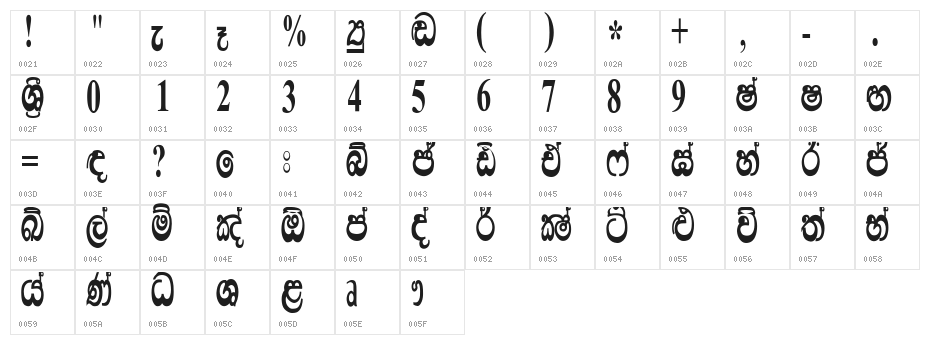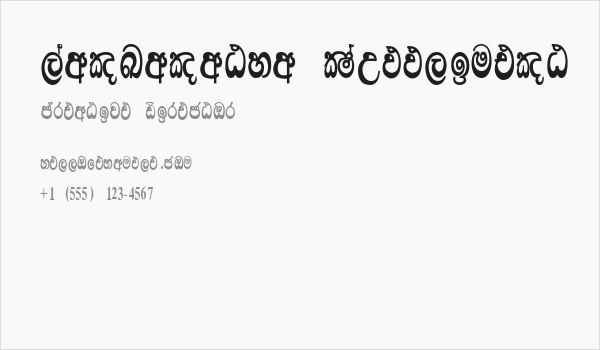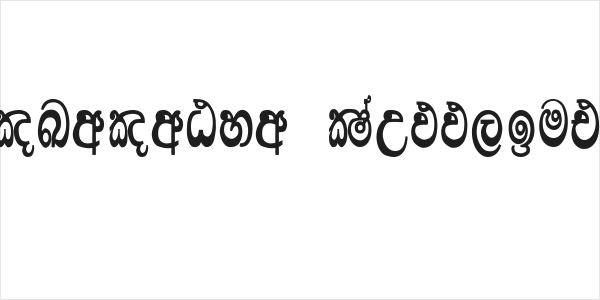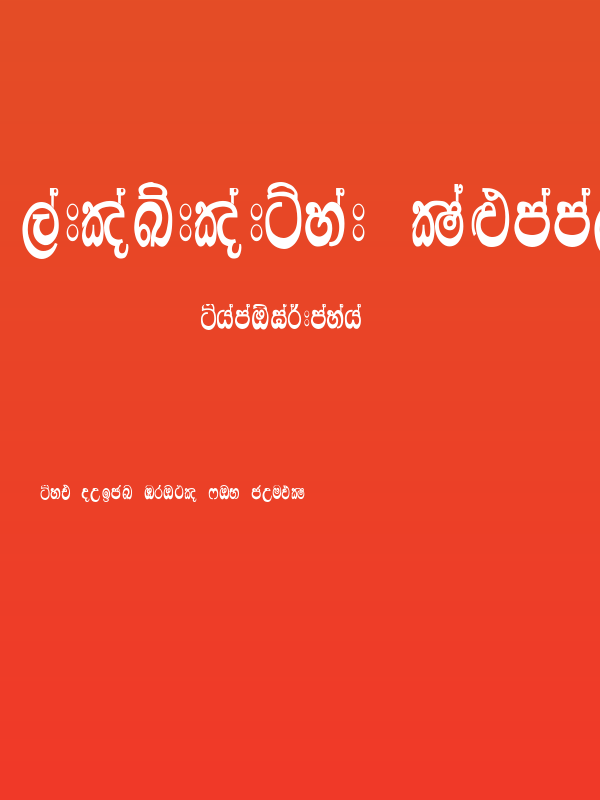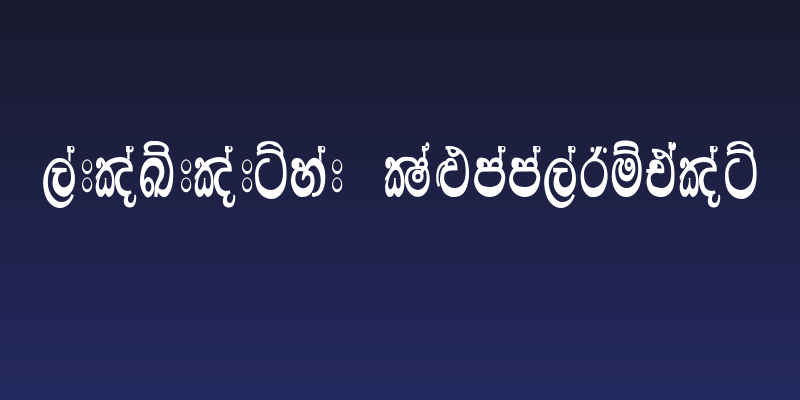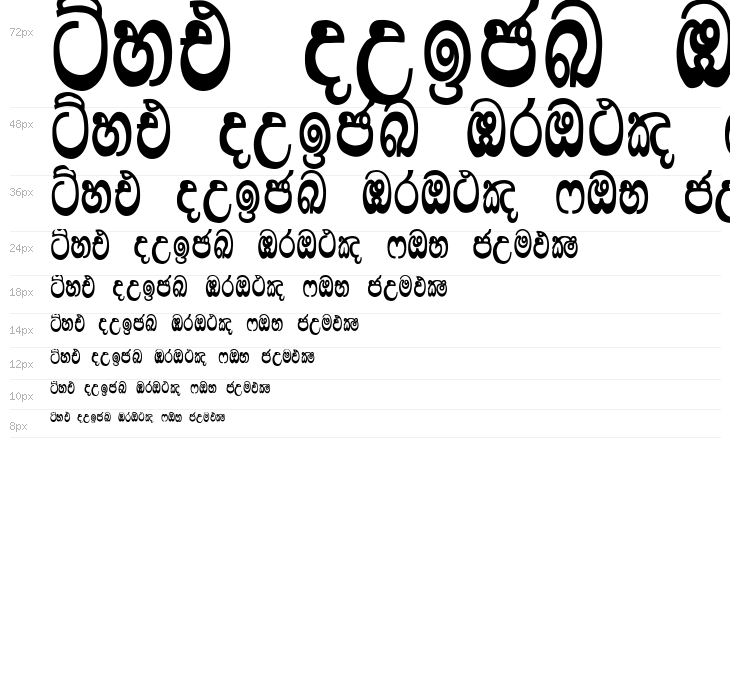
Lankanatha Suppliment Font
Lankanatha Suppliment Description
This font features a unique and intricate design, primarily showcasing characters from the Sinhala script. The letters are bold and rounded, with a distinct flair that adds a touch of elegance and tradition. The numerals are styled in a classic serif manner, providing a harmonious blend with the script characters. The special characters are also well-integrated, maintaining the overall aesthetic. This font is ideal for projects that require a cultural or traditional touch, particularly those related to Sri Lankan themes.
| Overall Style | Traditional |
| Use Case | Headlines, Cultural projects, Invitations |
| Proposed Projects | Ideal for cultural projects, traditional event invitations, and Sri Lankan themed designs. |